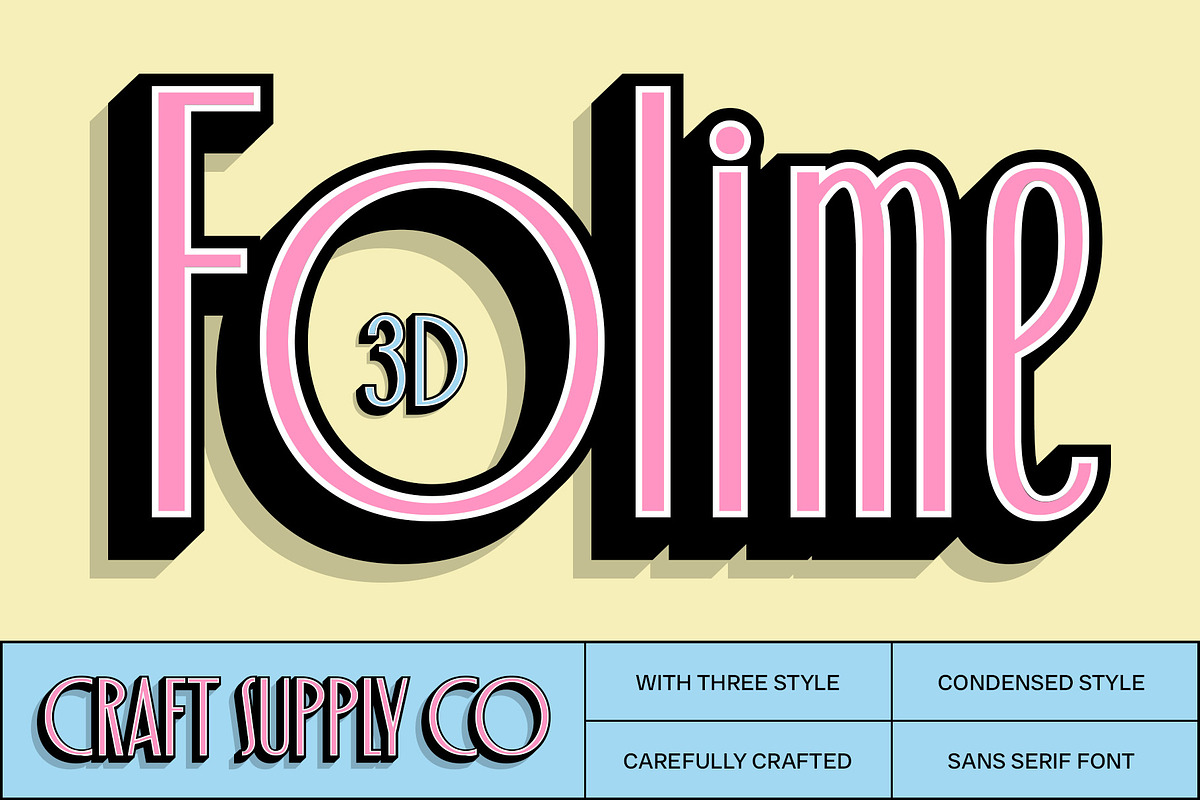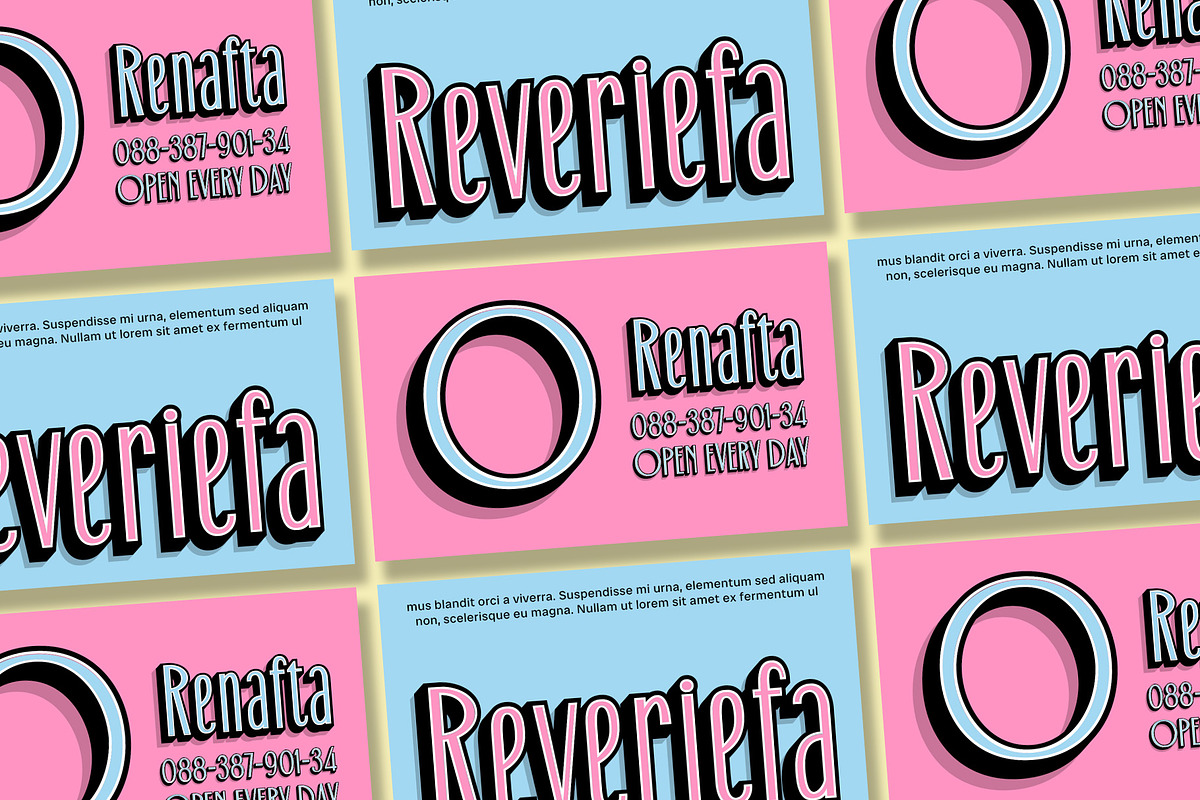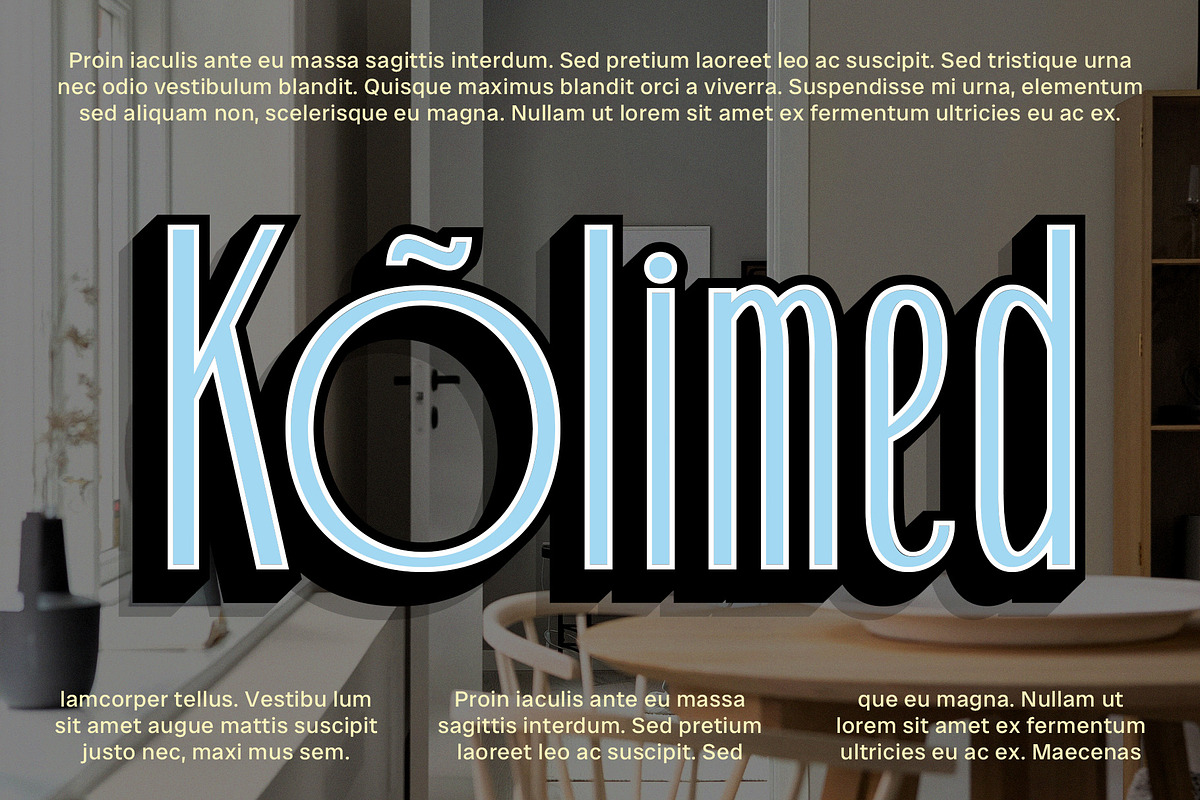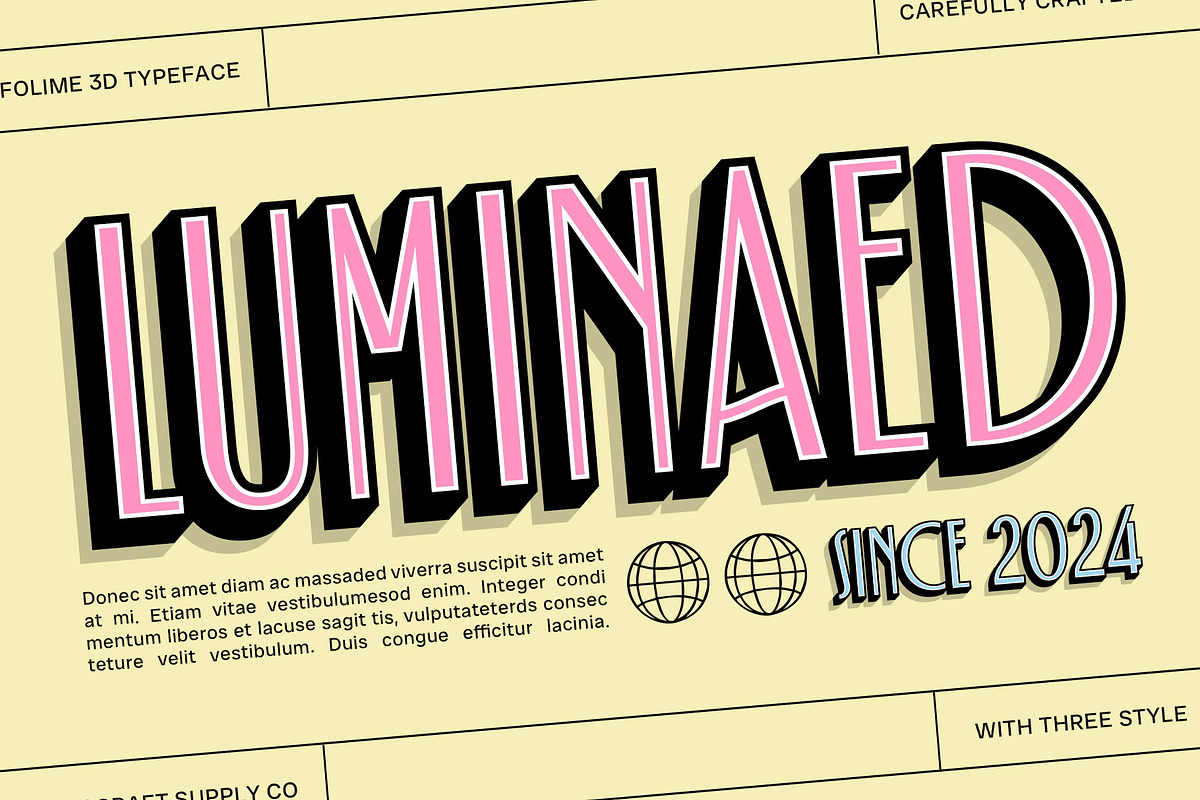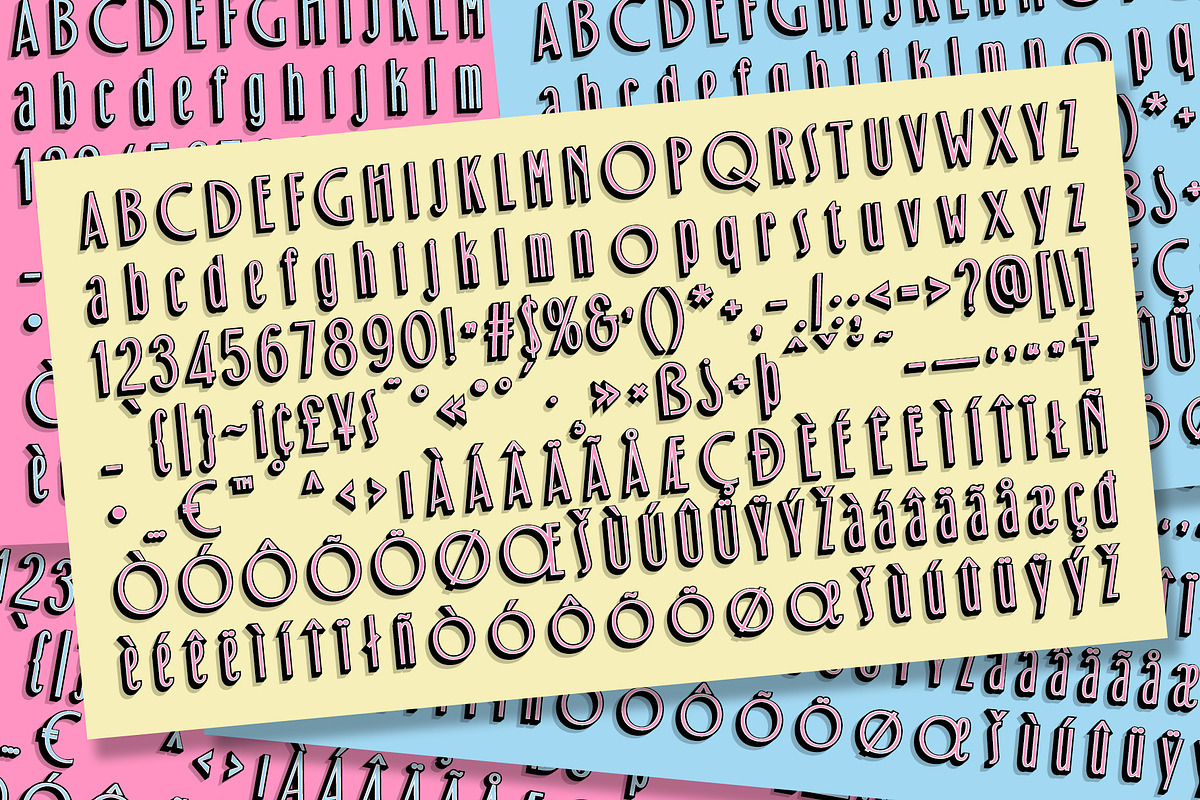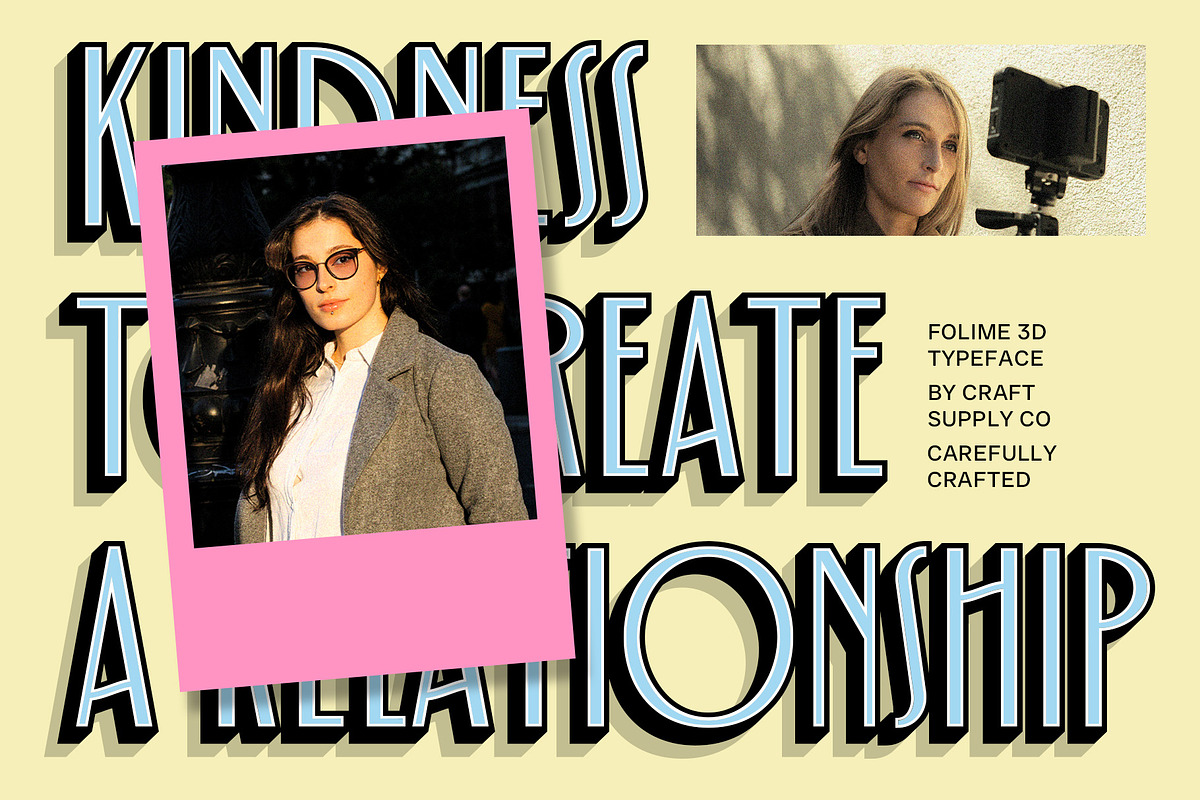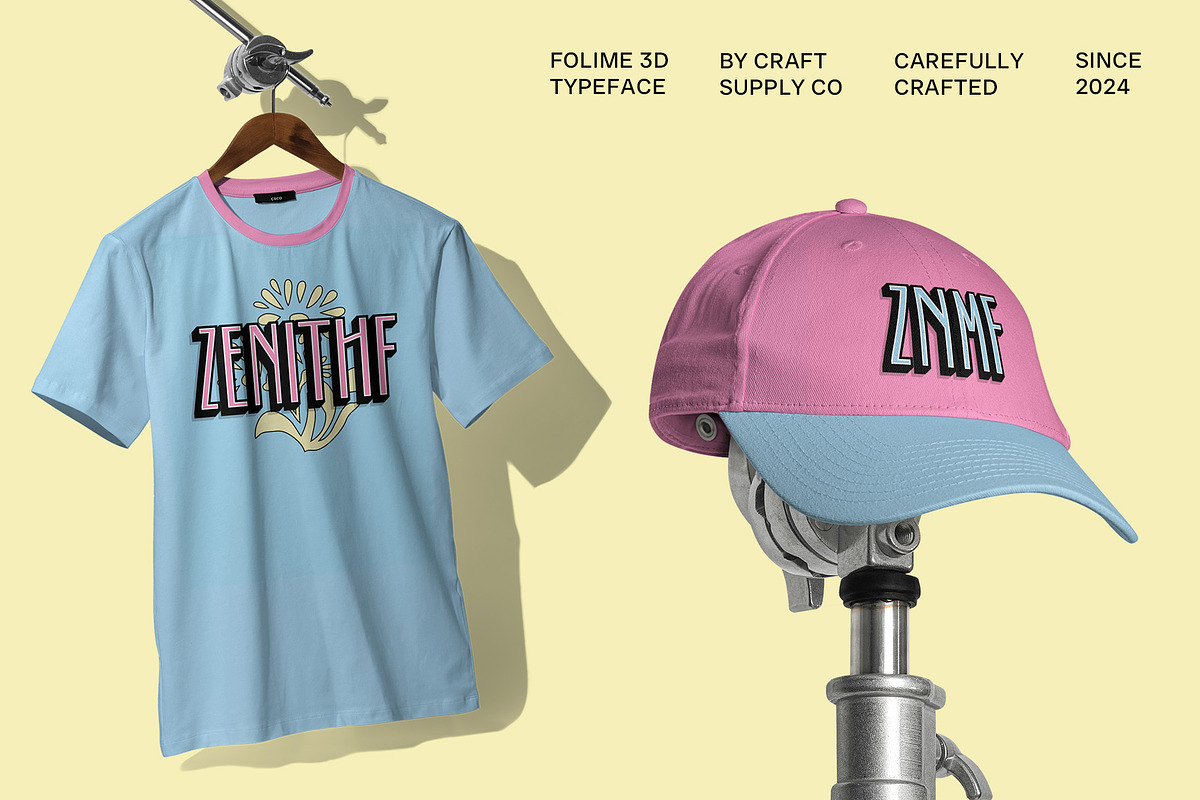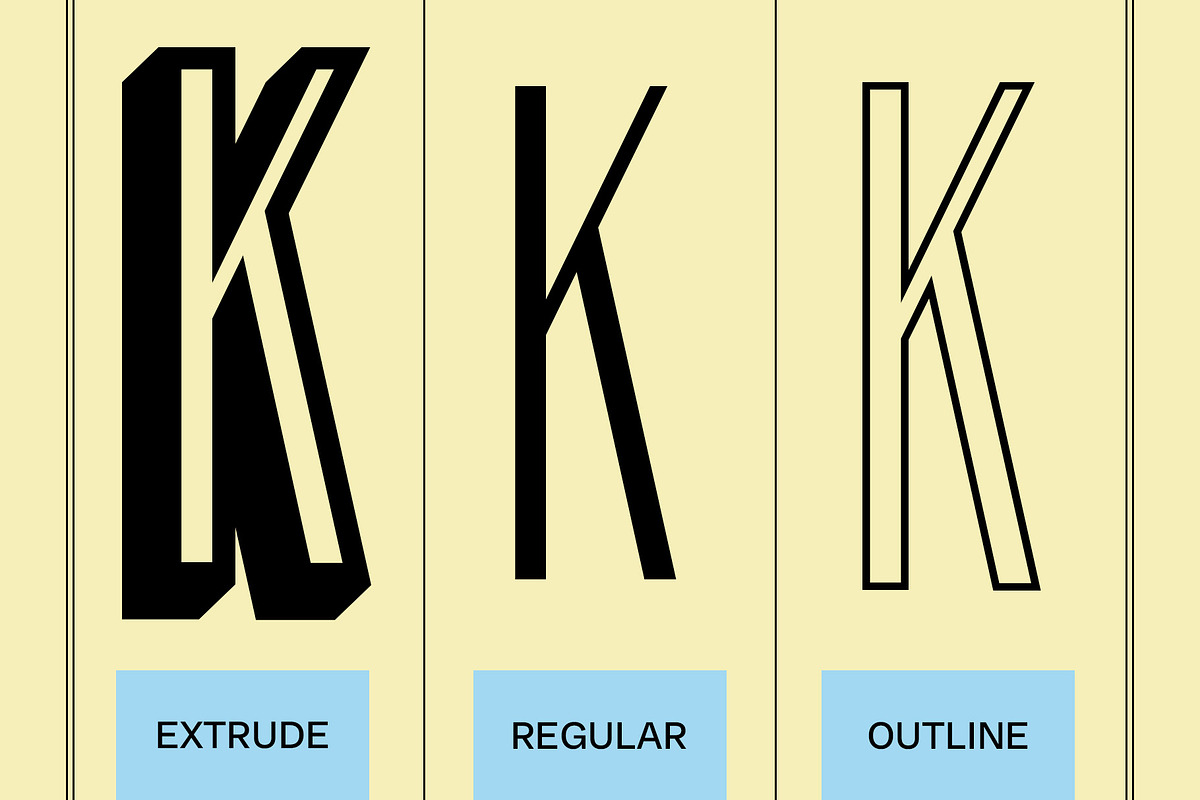
Folime 3D
Folime 3D Font: Compact Power with Futuristic Depth
Modern Condensed Design with a 3D Effect Folime 3D is a contemporary sans-serif font that combines a condensed form with a striking 3D effect, delivering a sleek and efficient appearance. Its minimalist design focuses on compactness, making it ideal for layouts where space is limited without sacrificing readability. The condensed shape gives the font a streamlined, modern look, perfect for creating clean and orderly visuals.
Dynamic Visual Depth The 3D effect in Folime 3D introduces a layer of visual depth that adds a sense of dimension and movement. This dynamic touch enhances the font’s modern aesthetic, making it stand out in any design context. The interplay between the condensed form and the 3D effect creates a unique visual experience that captures attention and conveys a sense of innovation.
Ideal for Futuristic and Professional Applications Folime 3D is well-suited for projects that require a modern, professional, and forward-thinking vibe. Whether used in branding, posters, or technology-focused designs, this font exudes confidence and sophistication. Its compact form and engaging 3D effect make it a powerful choice for designs that aim to highlight modernity, efficiency, and innovation, ensuring your visuals leave a lasting impact.
- Folime Regular
- Folime Outline
- Folime Extrude Right
- Folime Extrude Left